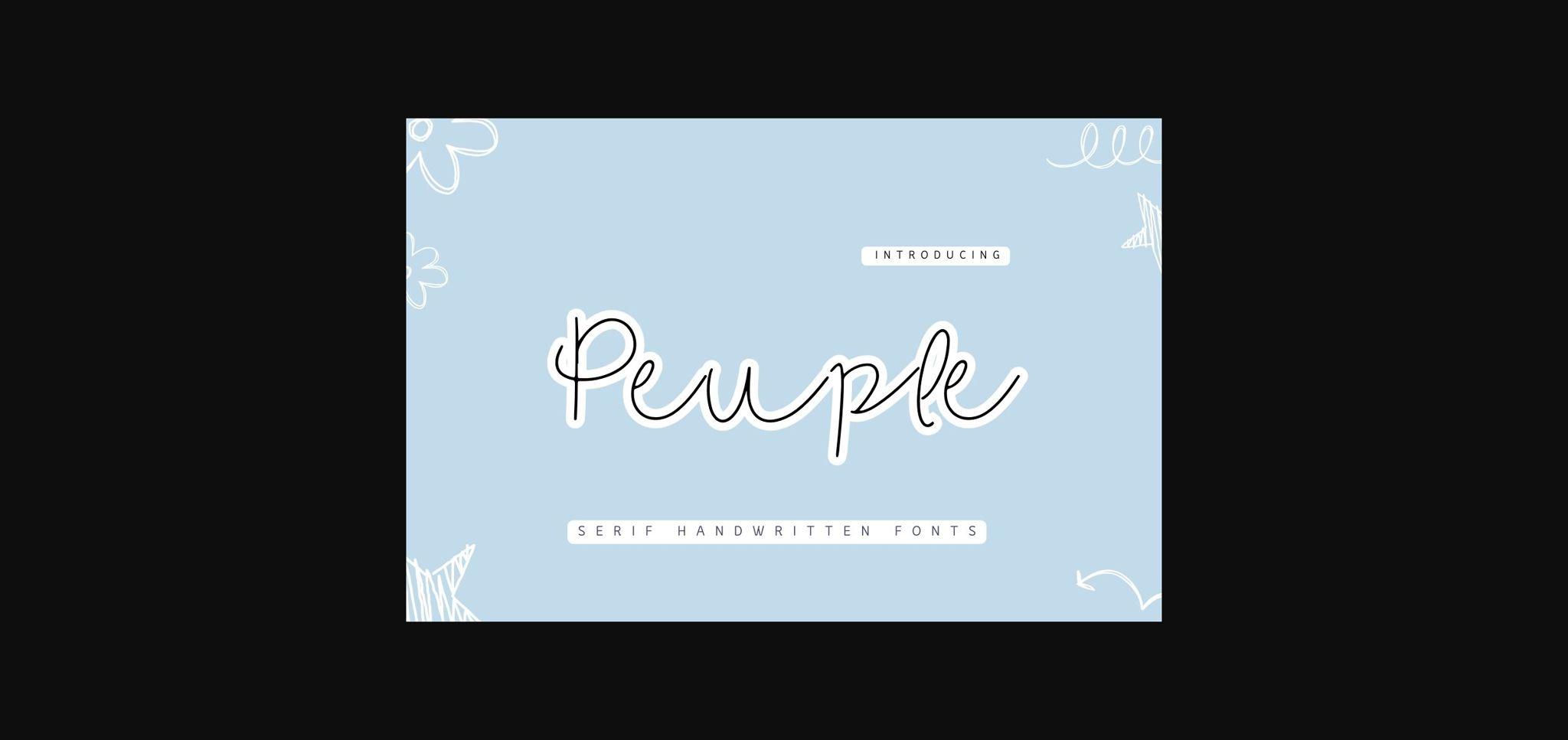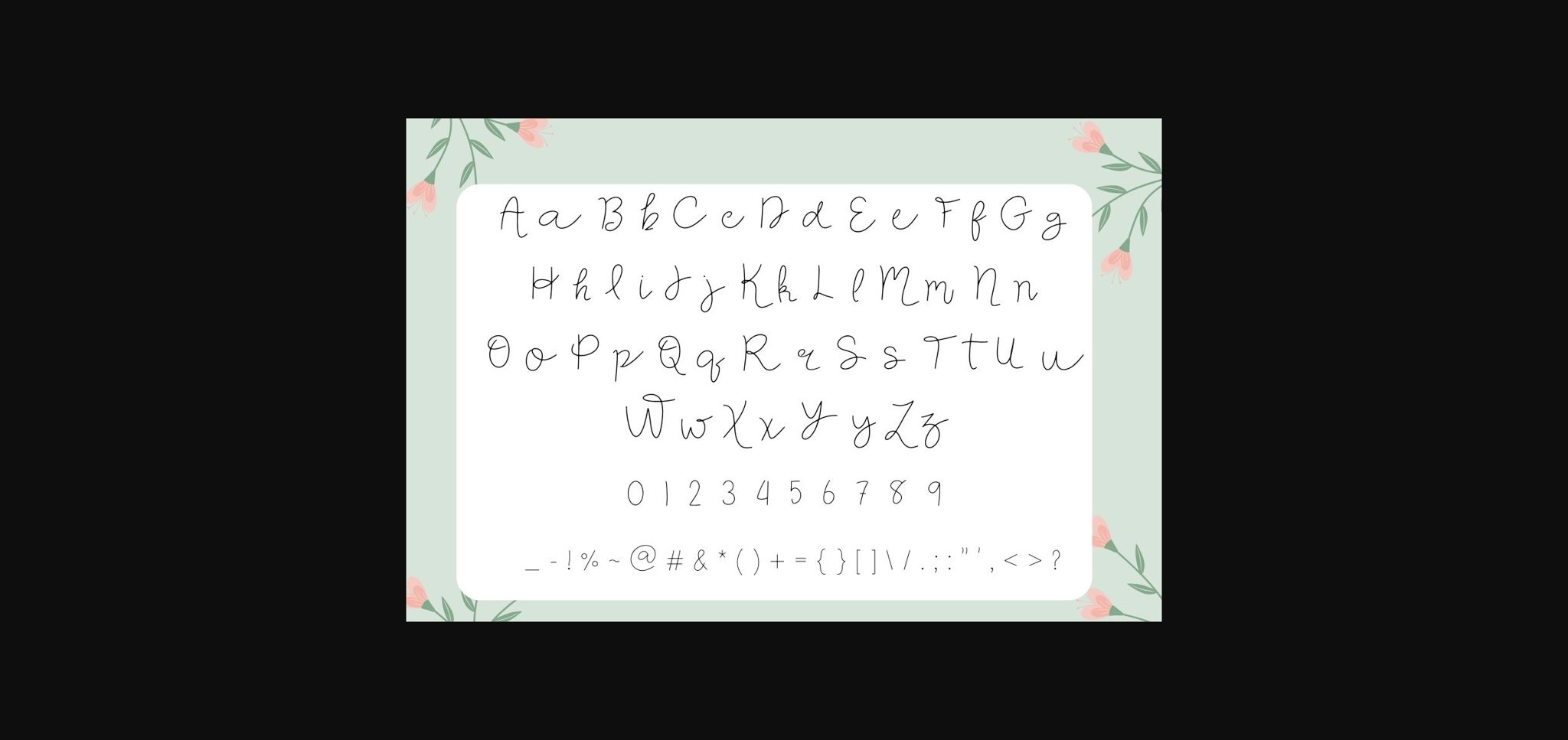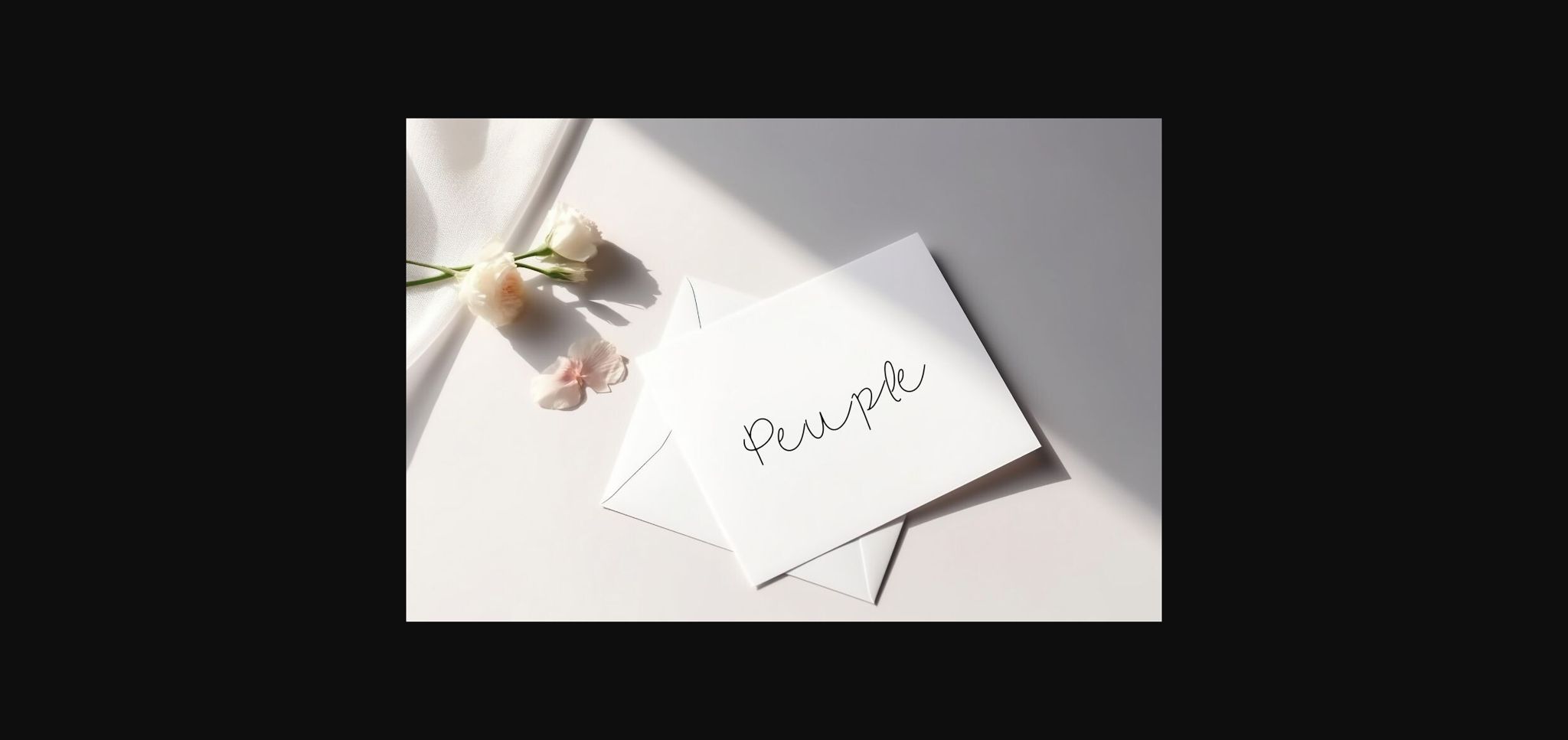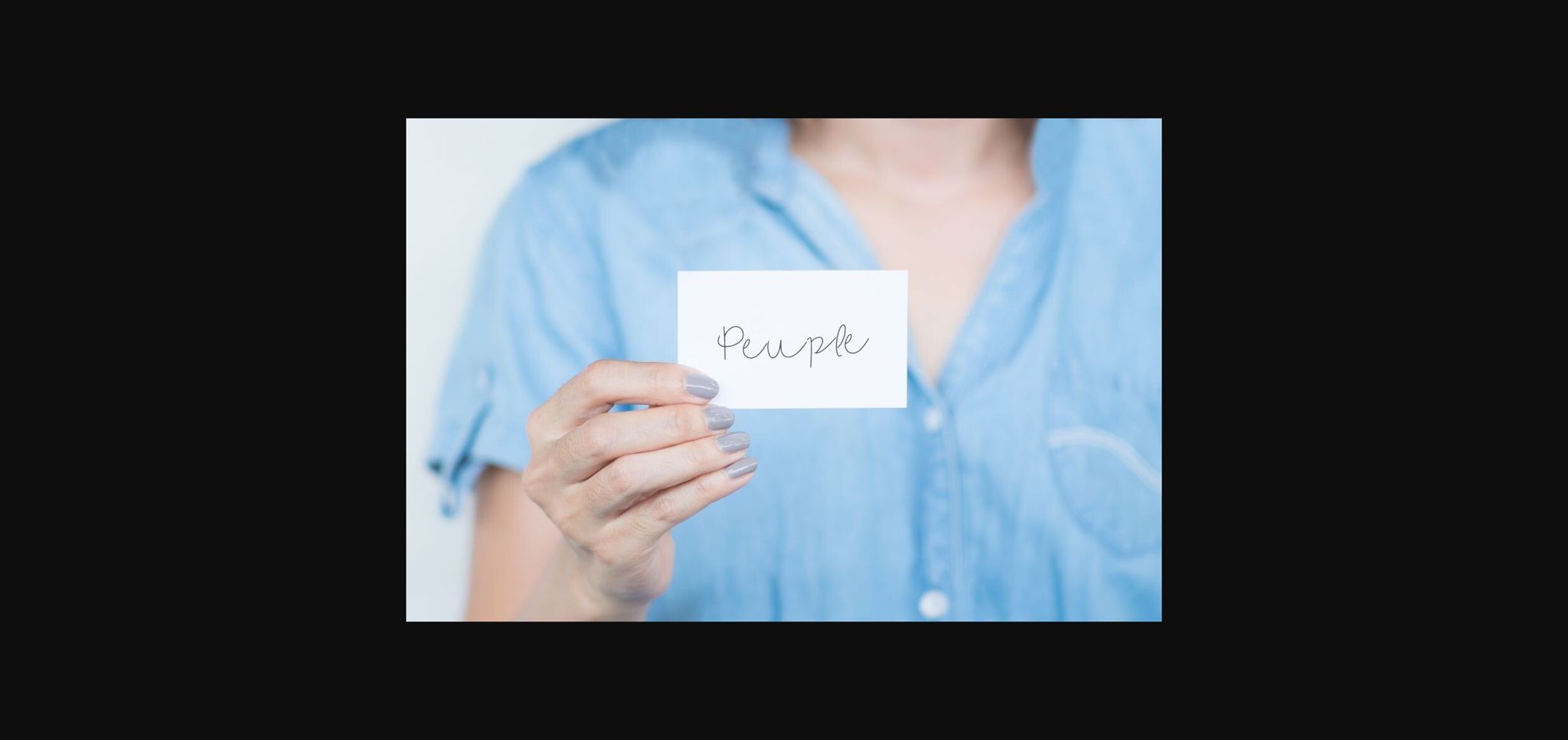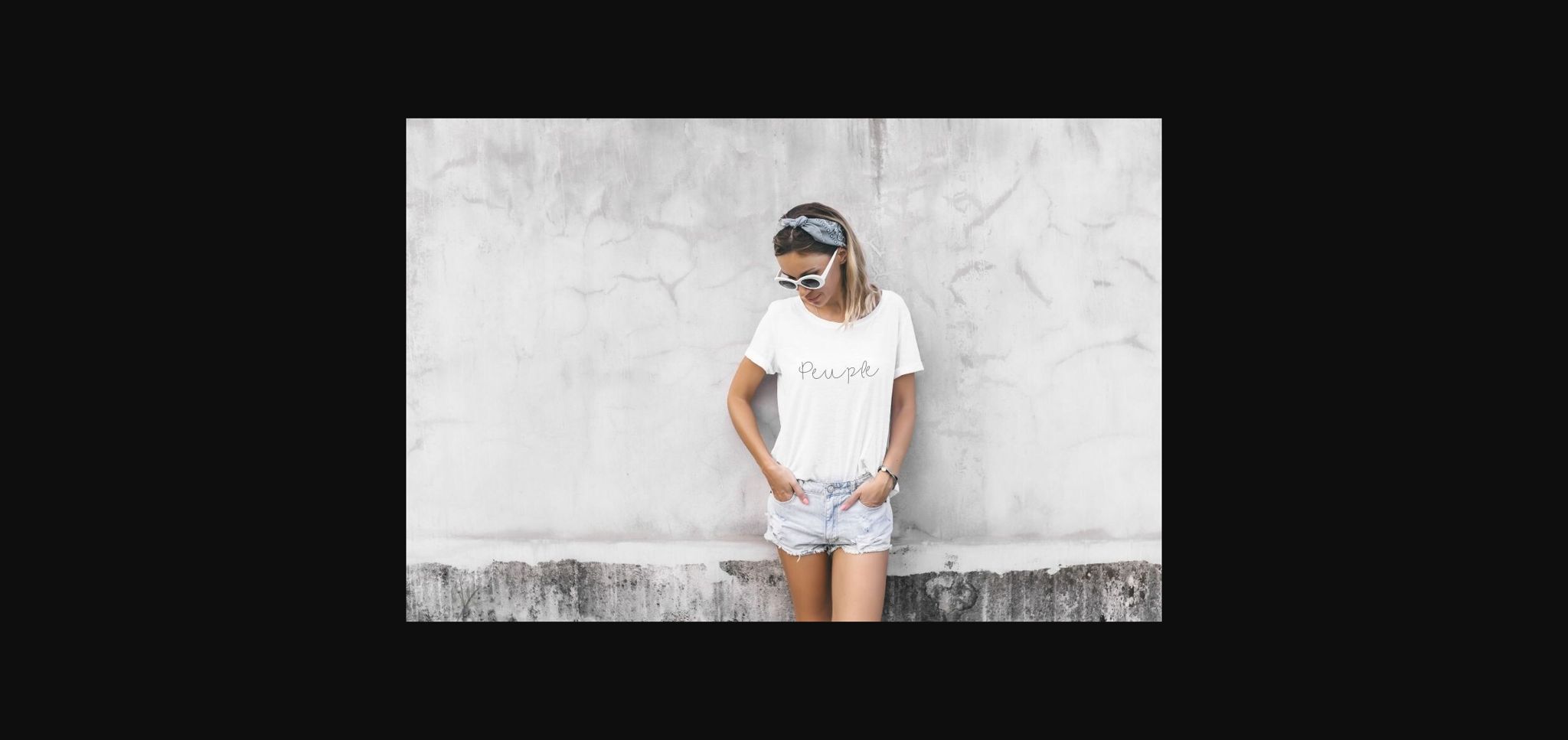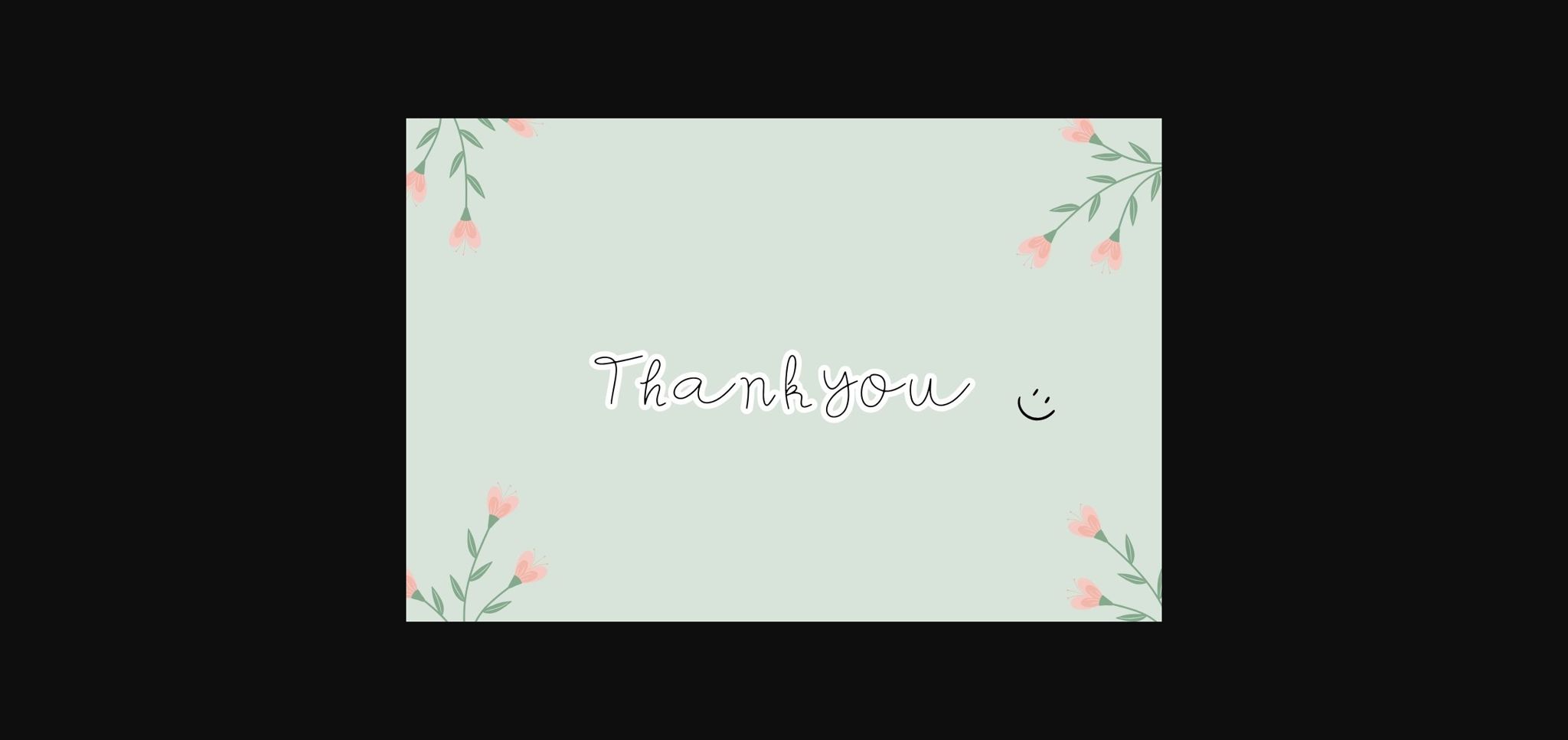
Peuple Font
About Peuple Font
Peuple is a beauty and stylish script & handwritten font, designed to add a touch of elegance to any project. With its graceful and fluid letterforms, this font exudes a sense of beauty and refinement that is perfect for branding, invitations, and editorial design.
This font is adorable font for design that needs cute and retro touch, such as back to school design, kids design, birthday invitation, summer design, t-shirt design, crafting, sticker, sublimation, and many more.